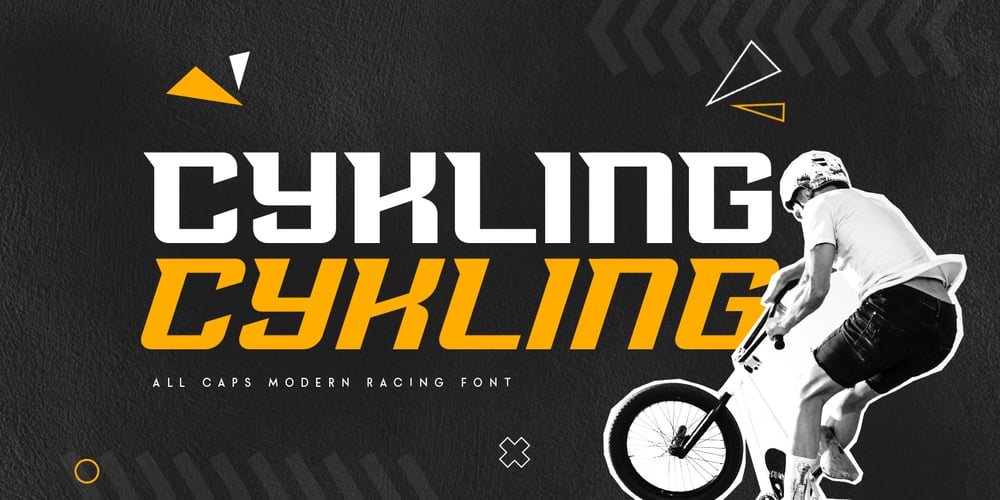
Cykling Font Family was designed by Zamroni Hamzah and published by Sensatype Studio. Cykling contains 2 styles and family package options. Cykling, a Sport Racing Car Font that created special for Branding, Title and more stand out typography for sport and action. It’s so perfect to add your style and headline overview for sport, technology, actions, and fighting theme. And specially for this font, we crafted for bold action style and modern feels so enjoy to create any project that will show your main idea out.Cykling Sport Racing Car Font ready with: Regular & Italic (with normal and stylistic alternate) characters prepared to get best results 4 files format already Preview as a inspirations that you can do with this font Ready with All Uppercase characters Wish you enjoy our font. 🙂